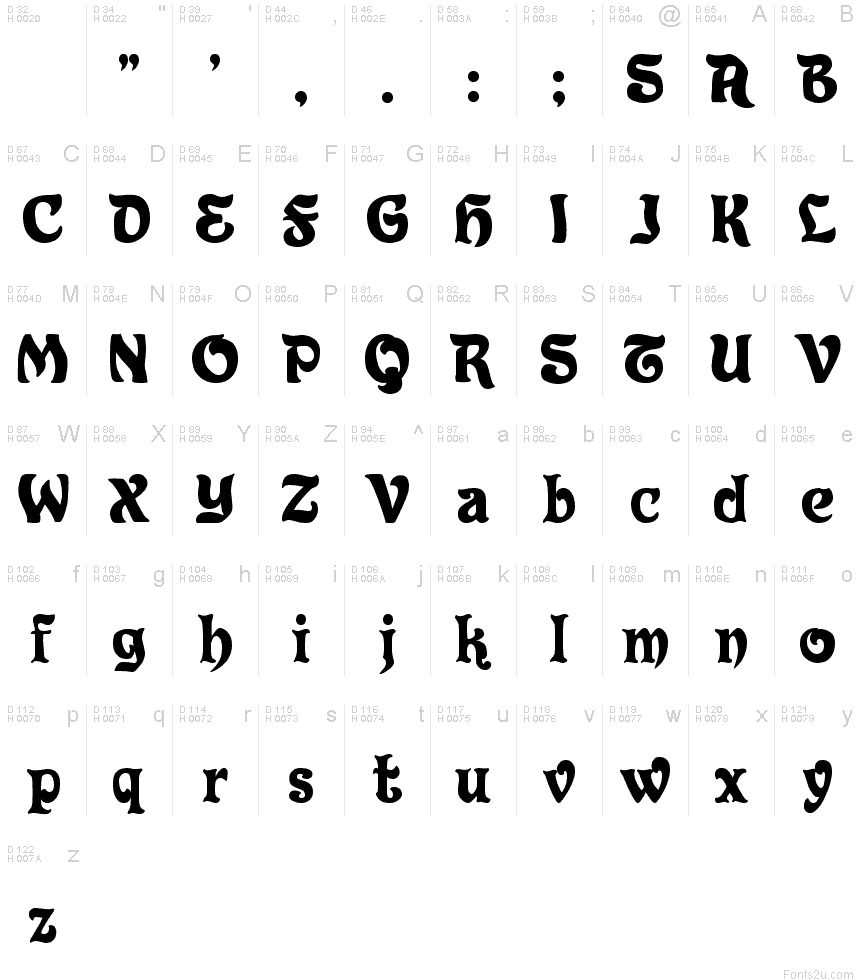
Eldorado
Eldorado font is a free retro display typeface dripping with inky swirls and chunky curves. Each letter feels hand-poured, with bulbous forms and spiral counters that echo ’60s psychedelic posters and ornate sign painting. The result is bold, legible word shapes that still feel lush and ornamental rather than stiff or digital.
Using Eldorado, headlines snap to attention on concert posters, festival branding, artisan food labels, retro game titles, and bold book covers. This free font thrives at large sizes where its curls can breathe, and it pairs smoothly with a plain, medium-weight sans serif for body copy or supporting details.